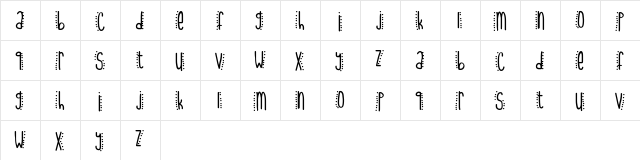
uptown funk Medium
Design Context for uptown funk Typeface
uptown funk has an approachable, lighthearted character — its loose, expressive forms are well-suited to children's content, casual branding, and fun-first design.
Font Pairing: Pairs well with a rounded or humanist sans for body copy, maintaining the friendly tone without relying on uptown funk to carry extended reading.
Pro Tip: Avoid using uptown funk for long passages of text — it works best for headlines, labels, and short calls to action.